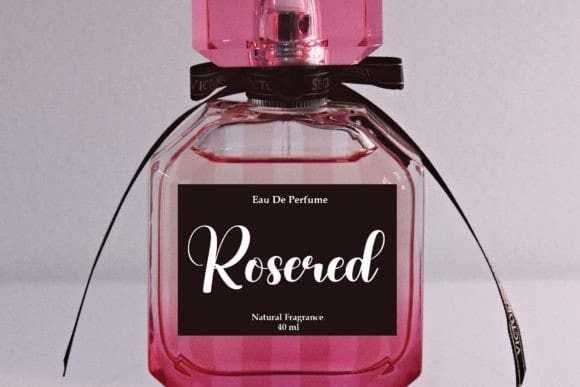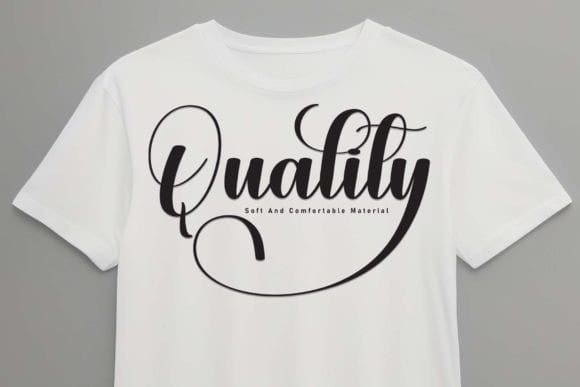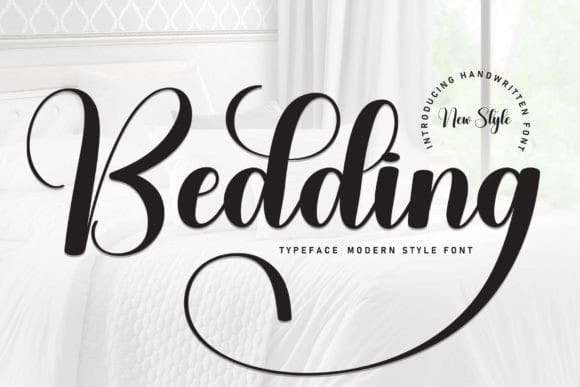
Bedding Script Font
Bedding Script Font is a sweet and friendly handwritten font. Its natural and unique style makes it incredibly fitting to a large pool of designs. The only limit is your imagination!